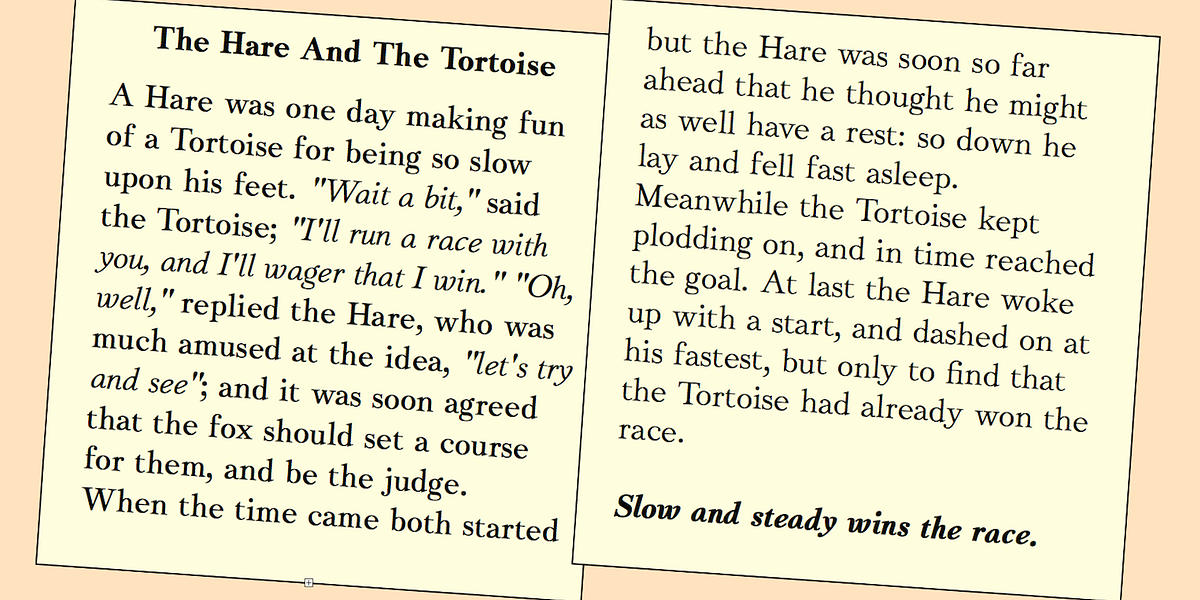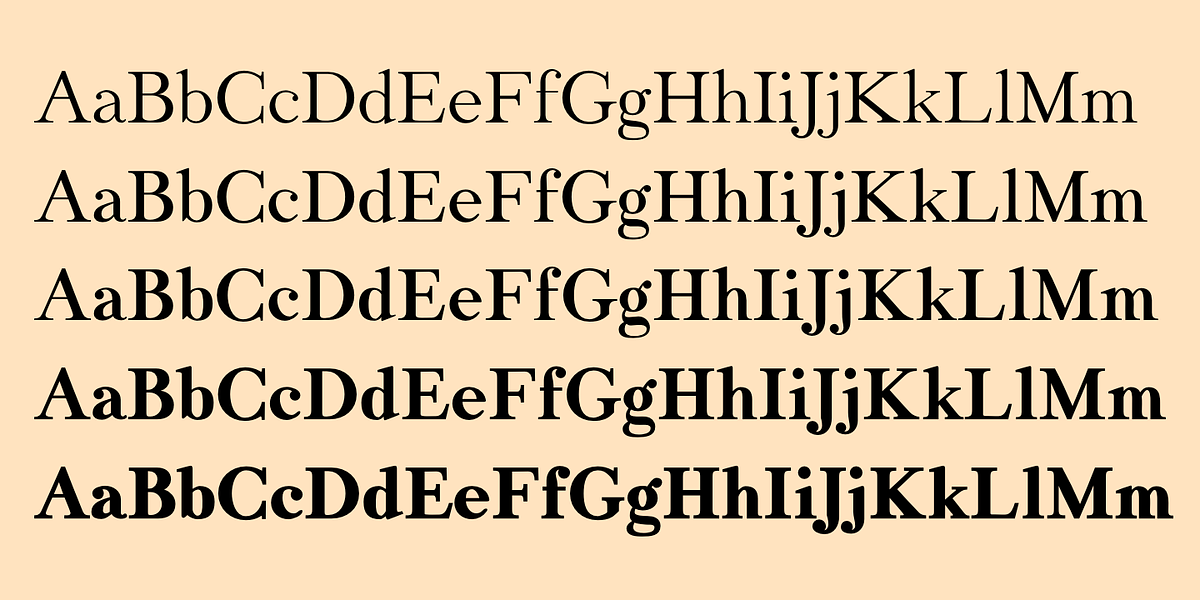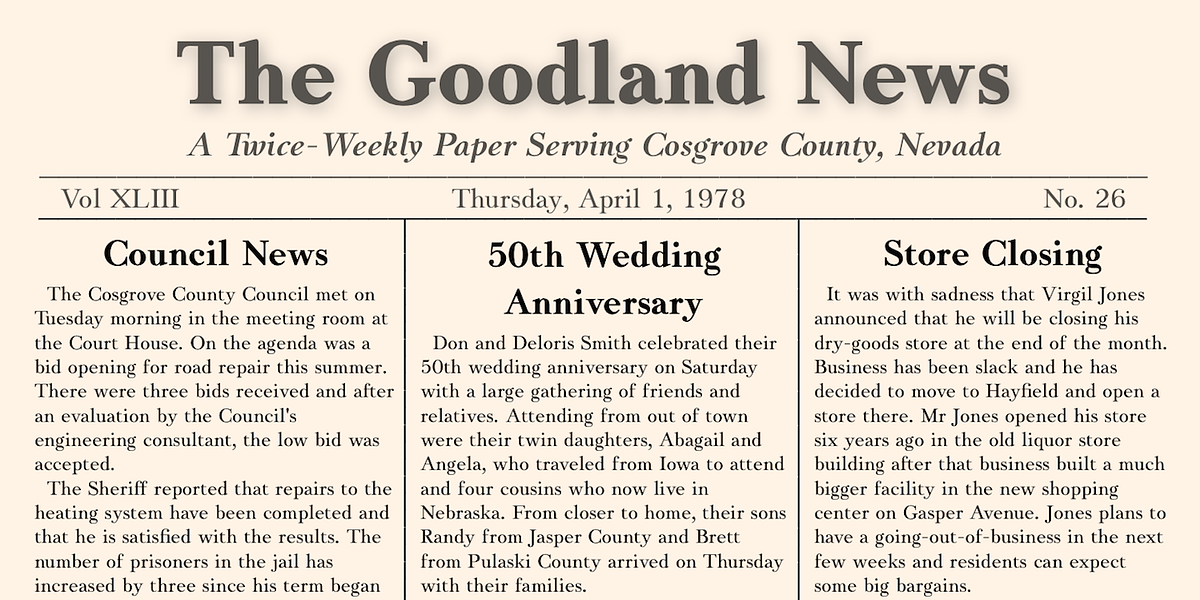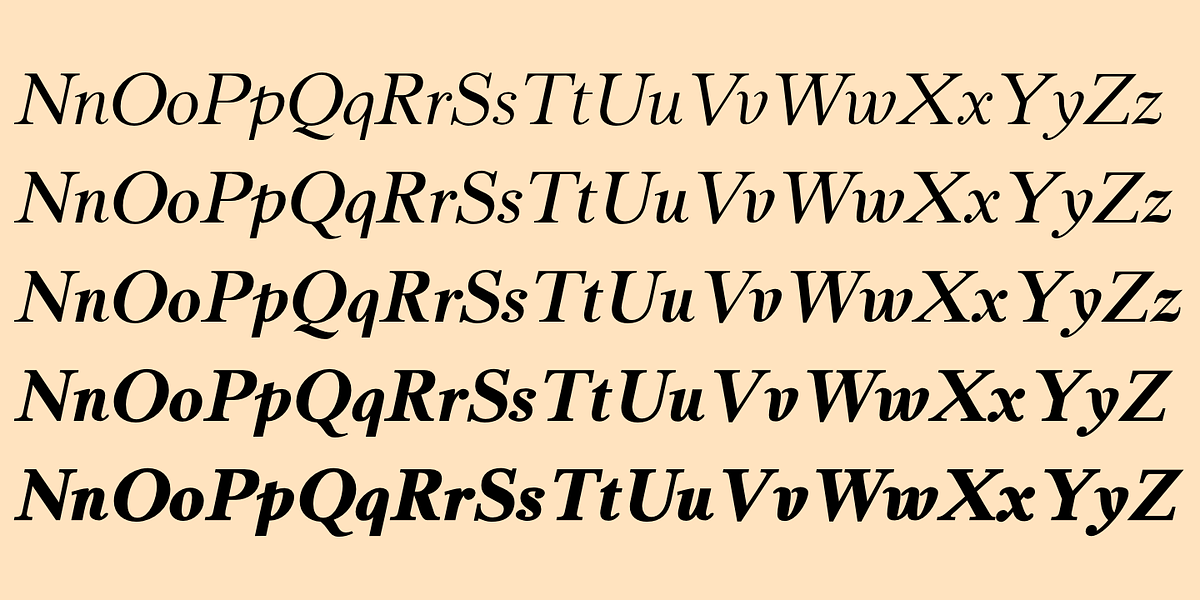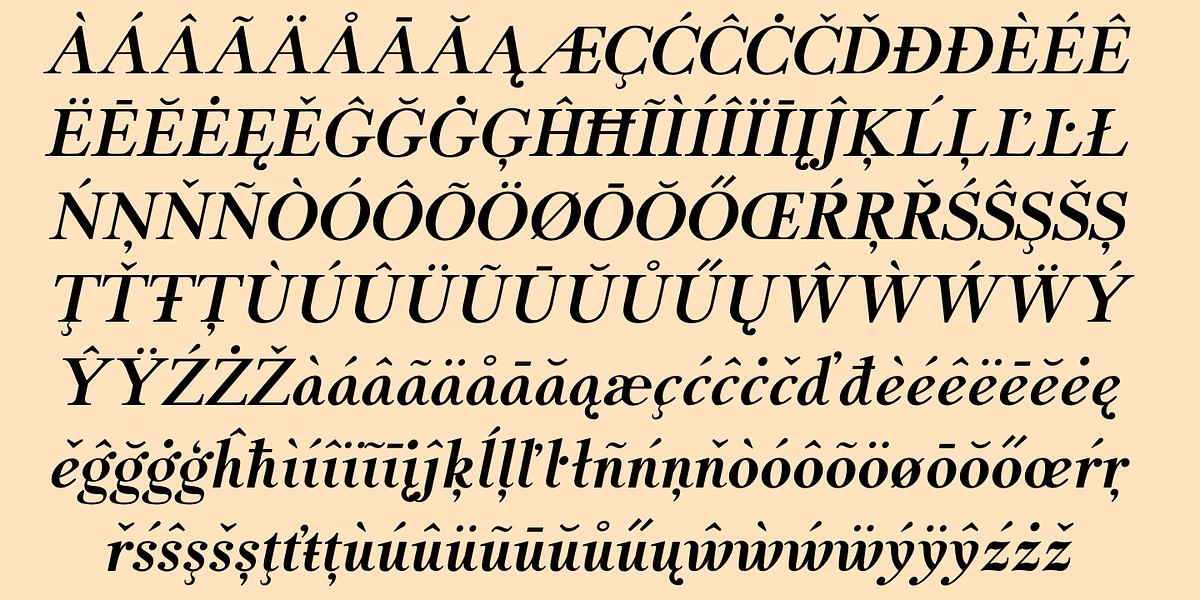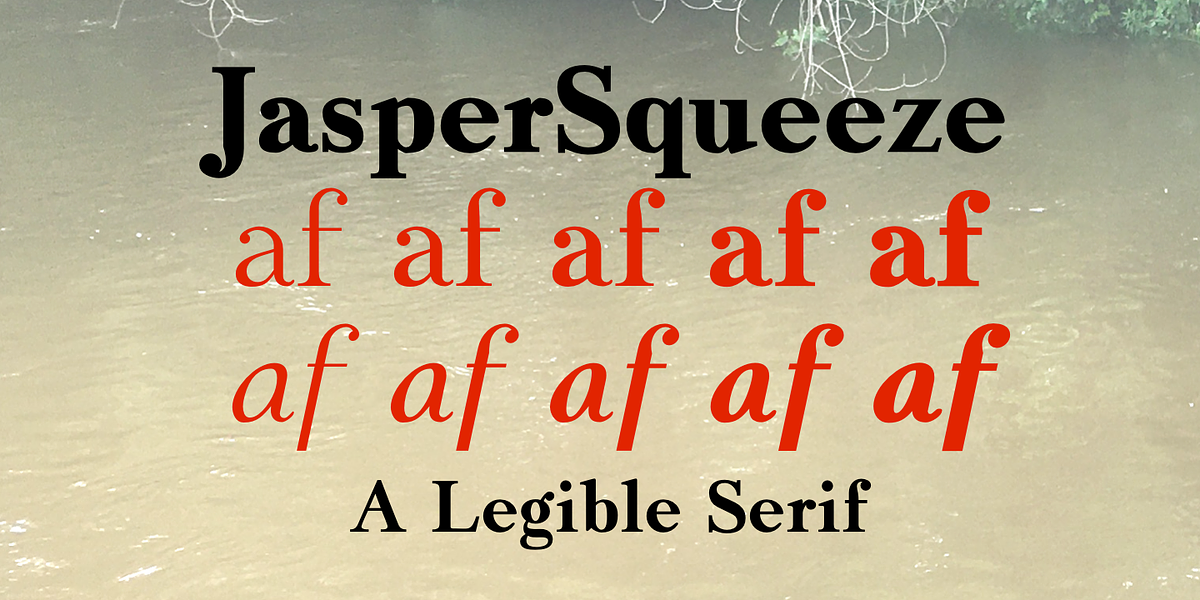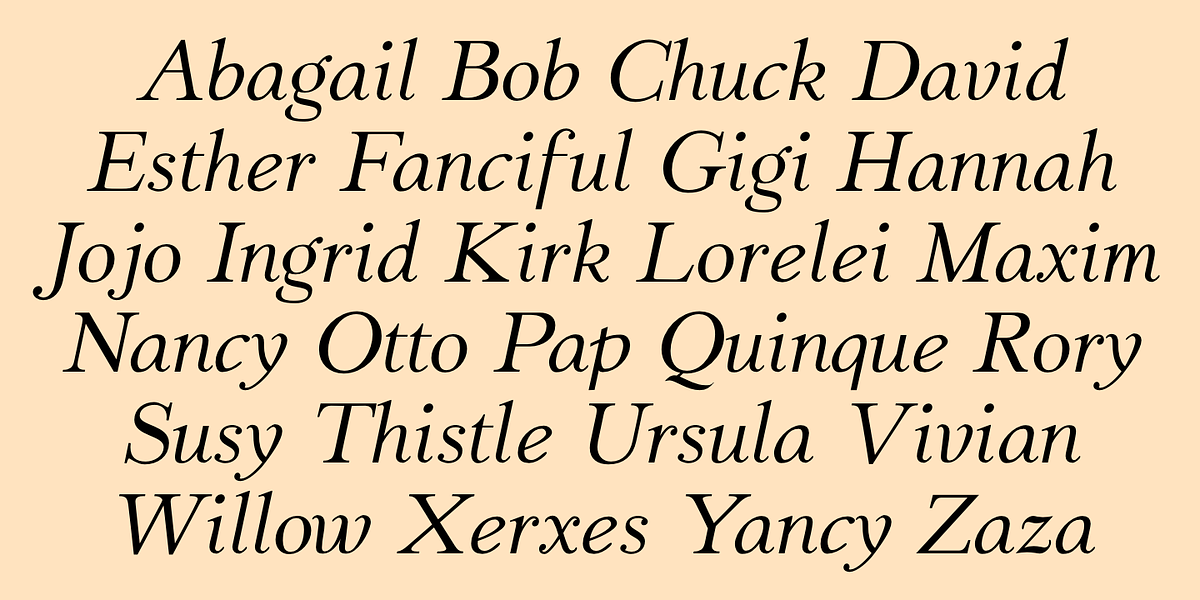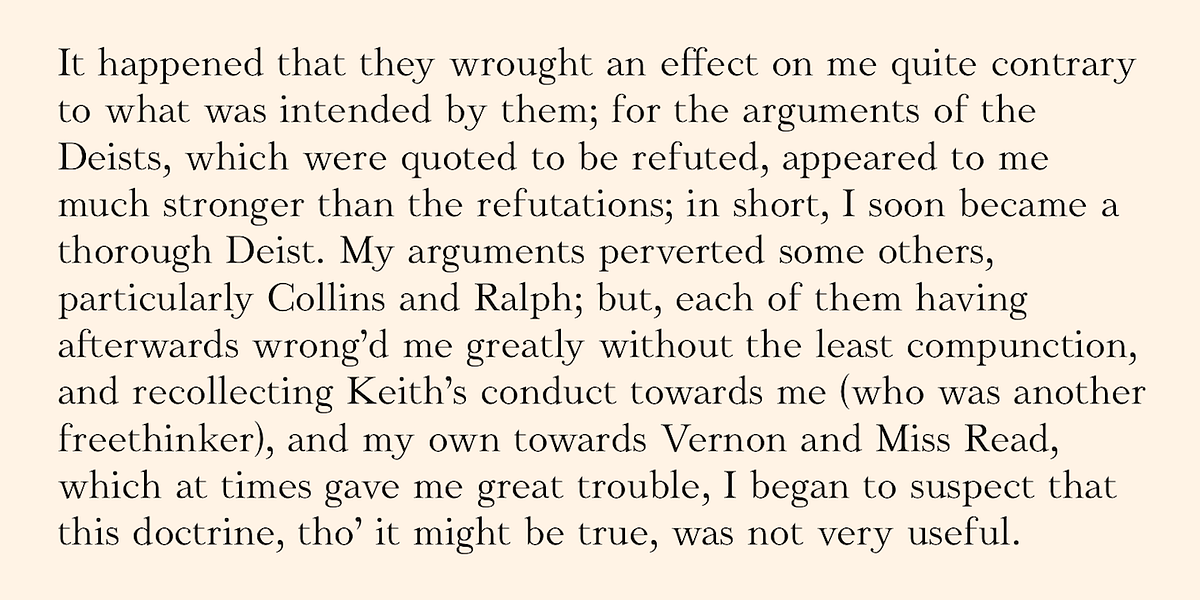
JasperSqueeze
JabcedHy is a serif typeface that draws inspiration from old-style designs. Its balanced proportions and classic serifs lend it an air of elegance and refinement, making it well-suited for body text applications where readability and aesthetic appeal are desired.